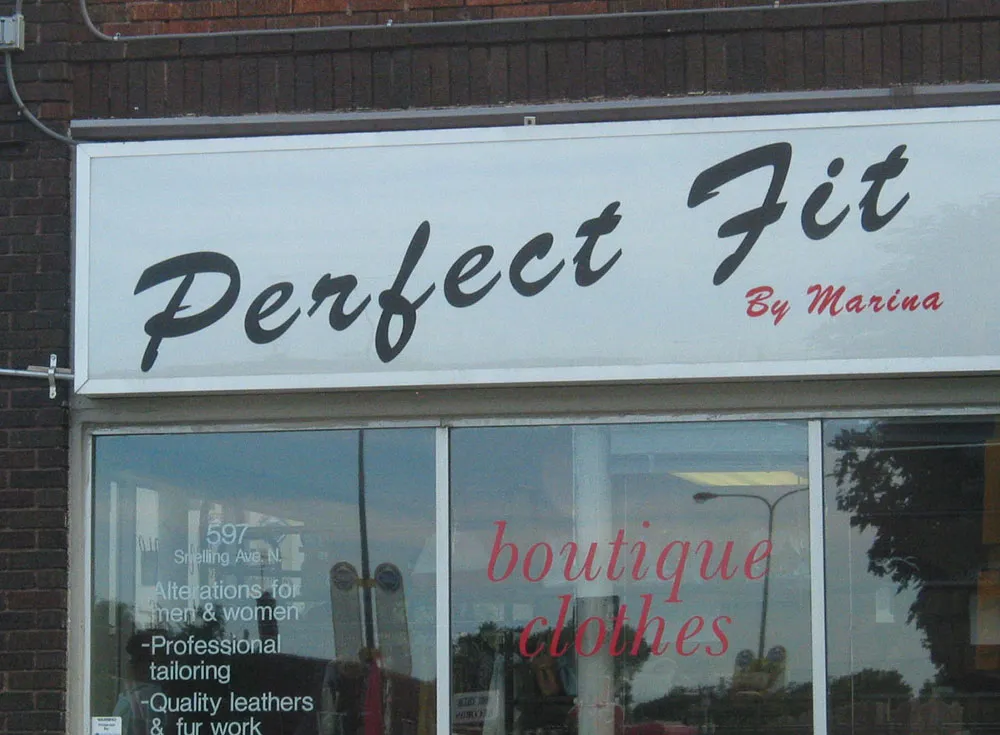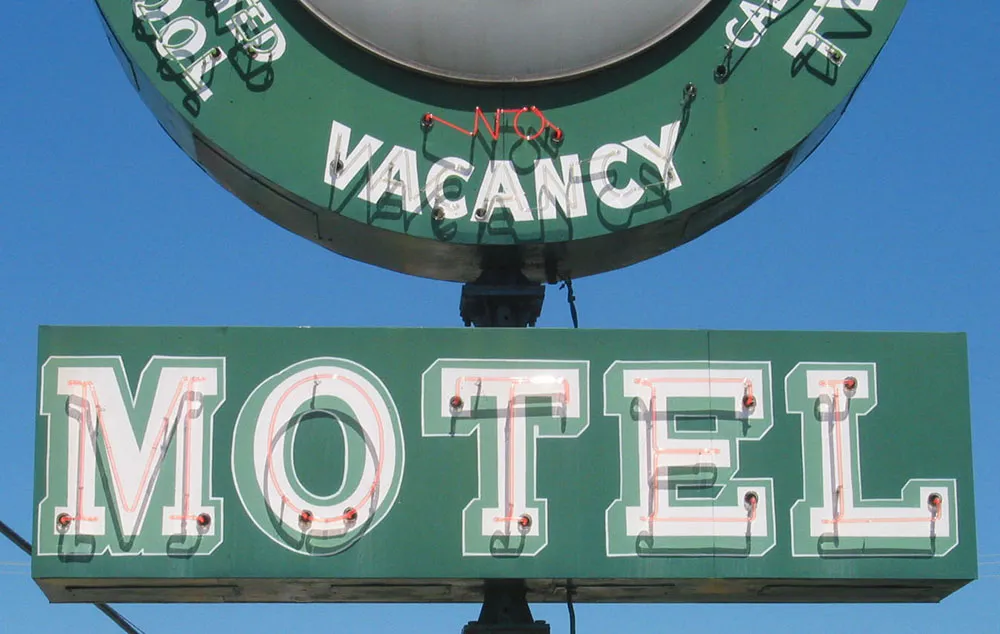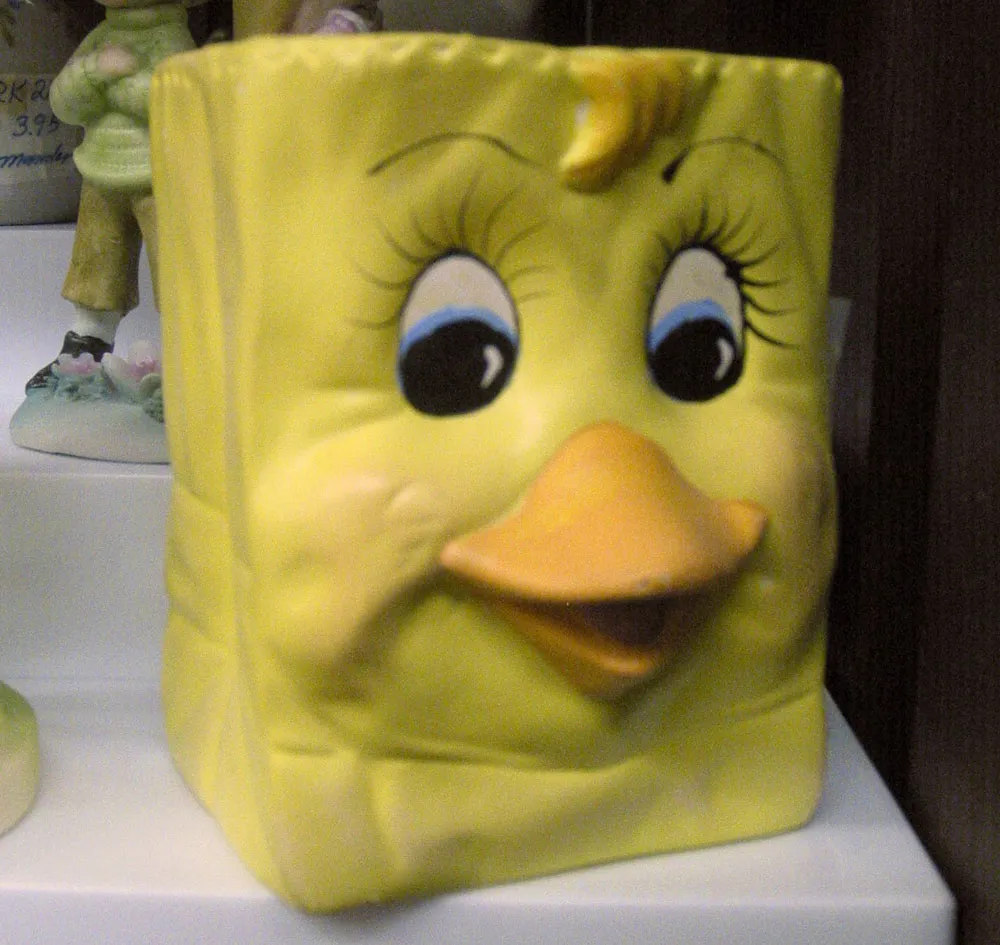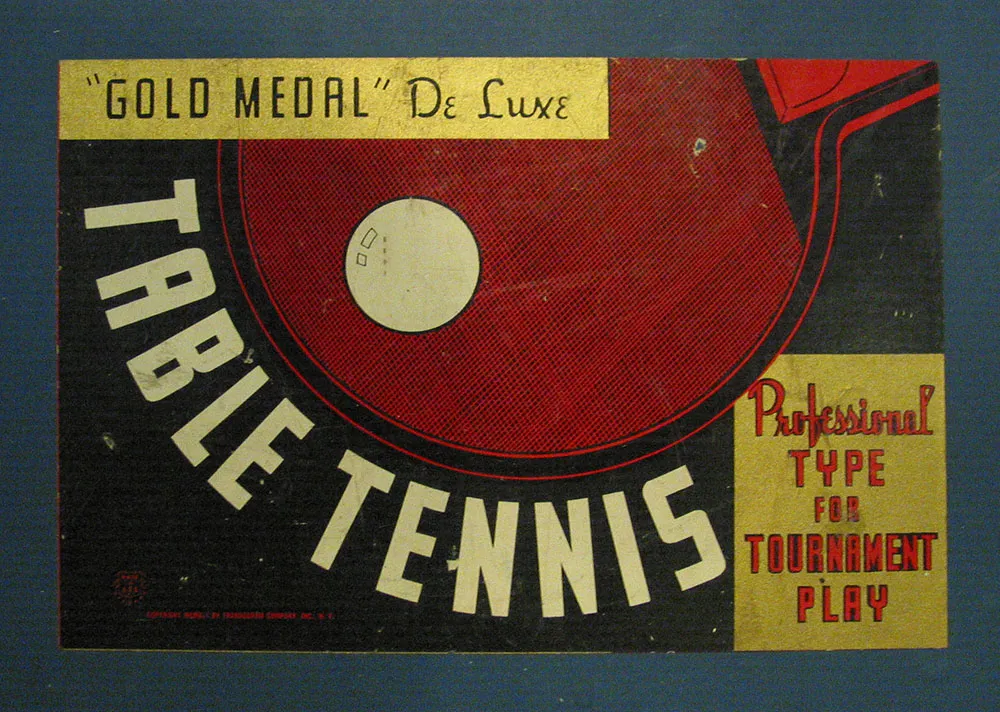
I spent last evening enjoying a talk by Scott McCloud at the Minneapolis College of Art and Design. He did a similar talk there two years ago which I also attended.
McCloud is a comic book artist and writer best known for his book Understanding Comics. He talked mainly about online comics, a phenomenon he has been involved in since the beginning.
The audience was mainly hard-core comics people, so it felt a little weird for me to be there. When I was young, I read Mad magazine and wanted to be a cartoonist for a while. But I’ve only been into comic books sporadically.
McCloud’s book caught my attention a few years ago and I would put it on my short list of most inspiring and thought-provoking books. The reason is that I just like the way McCloud thinks.
He has a knack for getting beyond conventional thinking, drawing out fundamental principles and presenting them lucidly. It’s an old cliché to say someone “thinks outside the box.” In McCloud’s case, I wonder if he even remembers what the inside of the box looks like.
Anyway, it was a lot of fun. As with the last time I saw him talk, he had his family with him. And, once again, he did a dramatic reading of Monkey Town at the urging of his two young daughters (only this time he didn’t blow out any of the speakers in the auditorium). And I got him to sign my copy of Understanding Comics. Pretty cool.
Cheshire Dave’s Mastication Is Normal is home of the famous Behind the Typeface: Cooper Black, a clever spoof of VH1’s Behind the Music series. Cheshire’s latest production, Etched In Stone, is a murder mystery revolving around the typeface Trajan. It was premiered at TypeCon 2004 in San Francisco and, hopefully, will be viewable online soon. **Update:**Chesh called it quits on his site, but Etched In Stone can be seen on Vimeo.
Jon Coltz is a statistics guy who discovered type at some point and has been writing about it on daidala. [Update: The site no longer exists.] Jon has absorbed a massive amount of knowledge about the subject for someone who is not in the design profession (he won the type trivia contest at TypeCon this year). He is also a very entertaining and engaging writer. Be sure to check out the interviews.
David Earl’s UK-based Typographer.org has gone through several incarnations over the years. When I first discovered it, it was an online magazine with articles about type and featured several writers. Then it changed into a type news blog for a while. A couple of years ago, it changed again and David has scaled back to posting an in-depth article every now and then.
Packaging label seen in an antique store in Hixton, Wisconsin on July 29, 2004.
Bizarre ceramic flower pot seen in an antique store in Wisconsin Dells, July 31, 2004.
A rather badly maintained vintage sign seen in Bemidji, Minnesota, June 25, 2002.